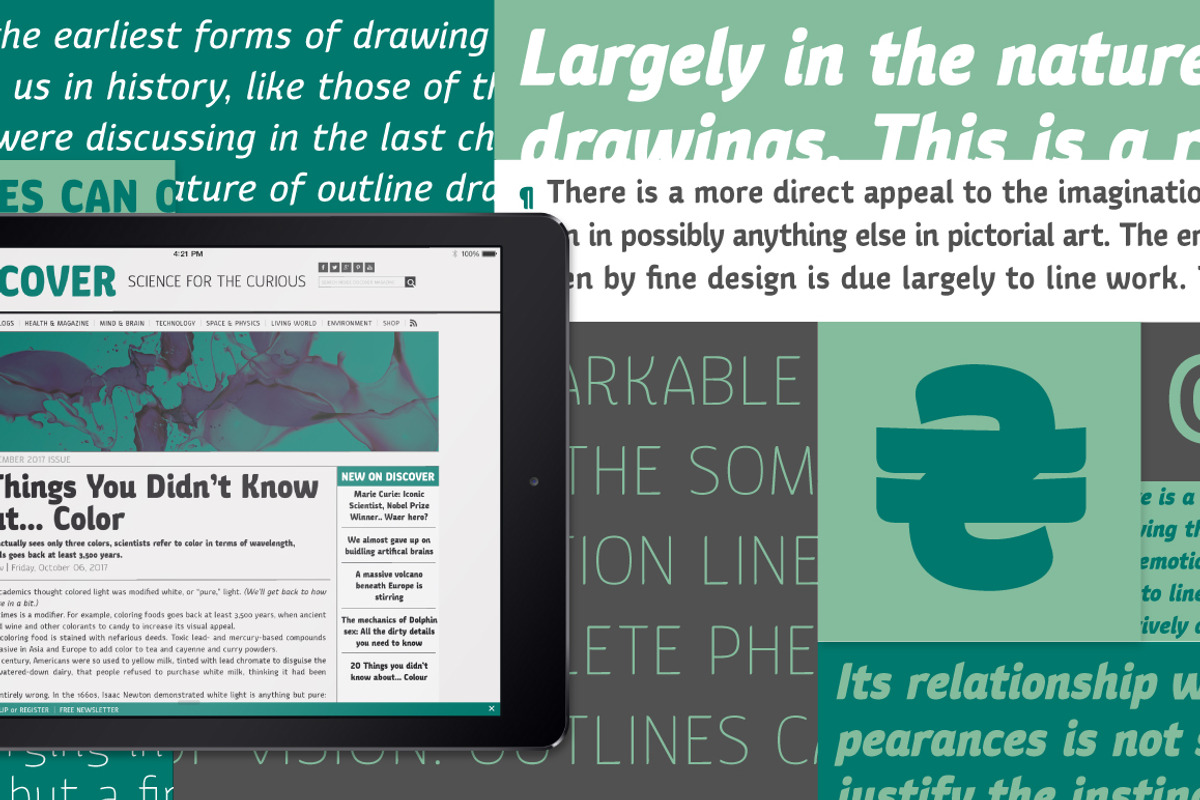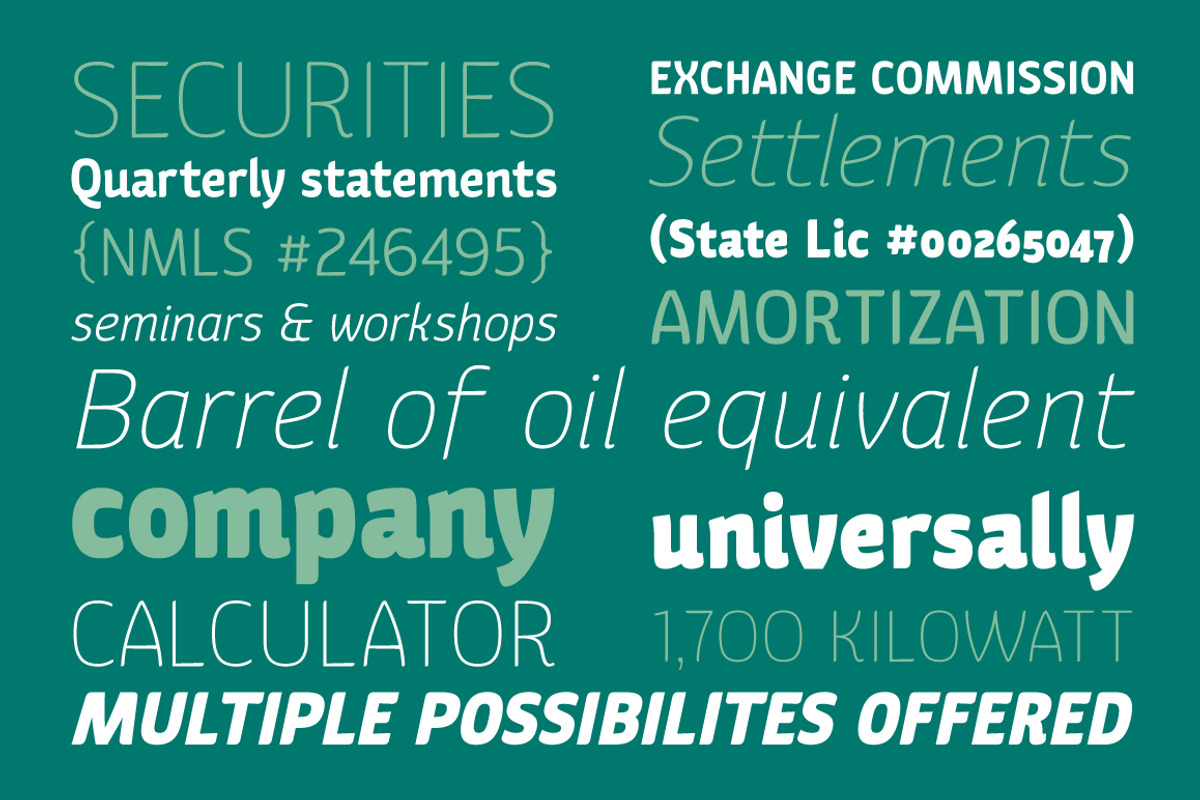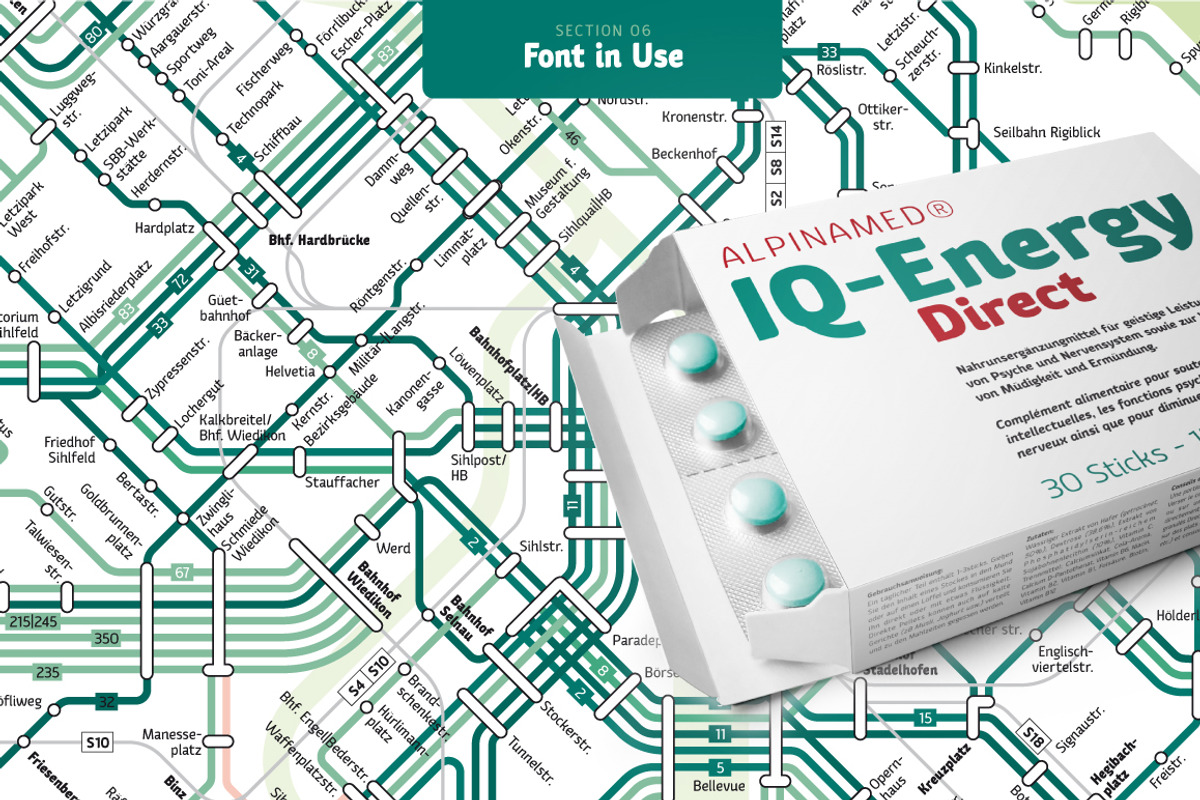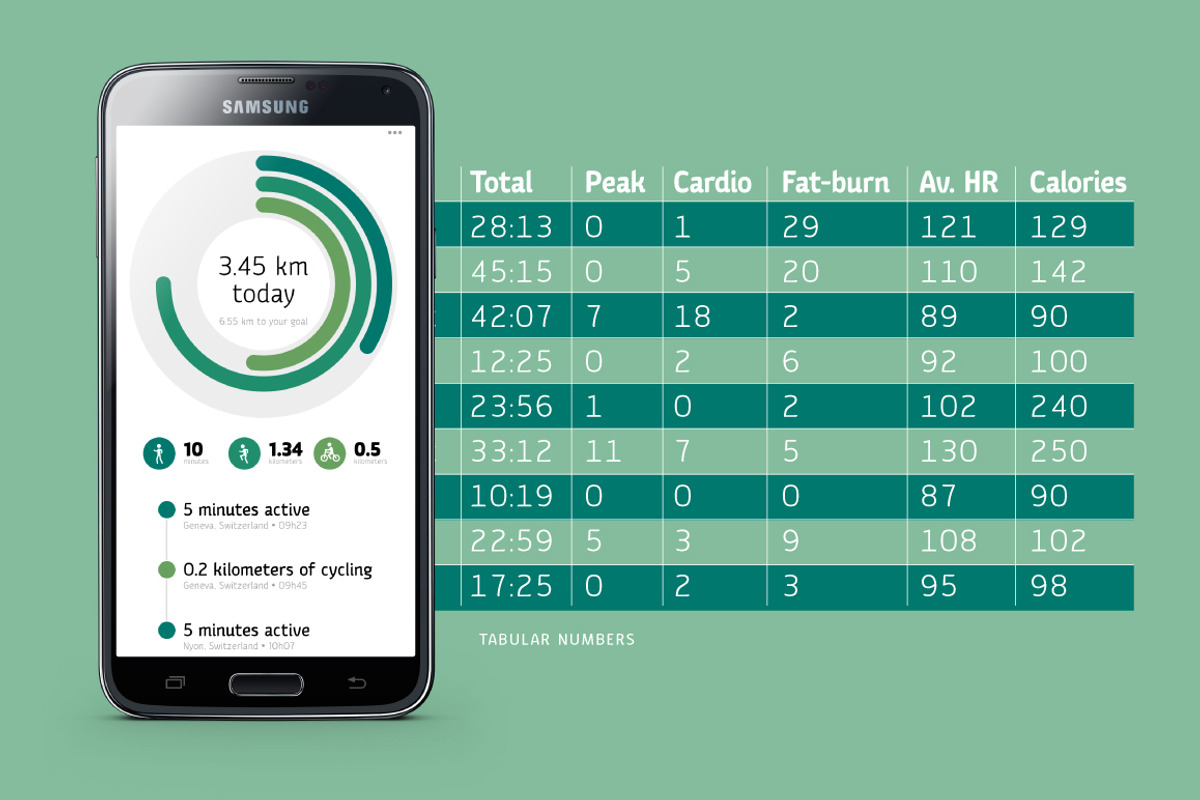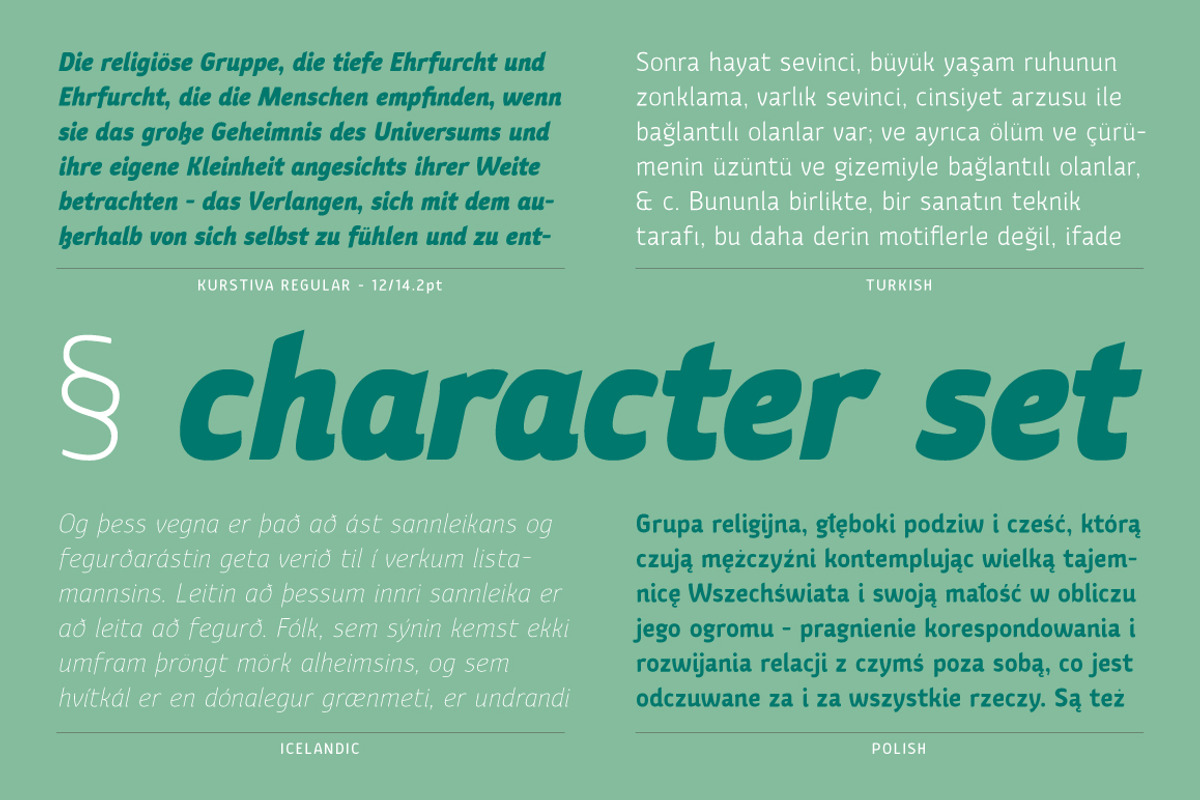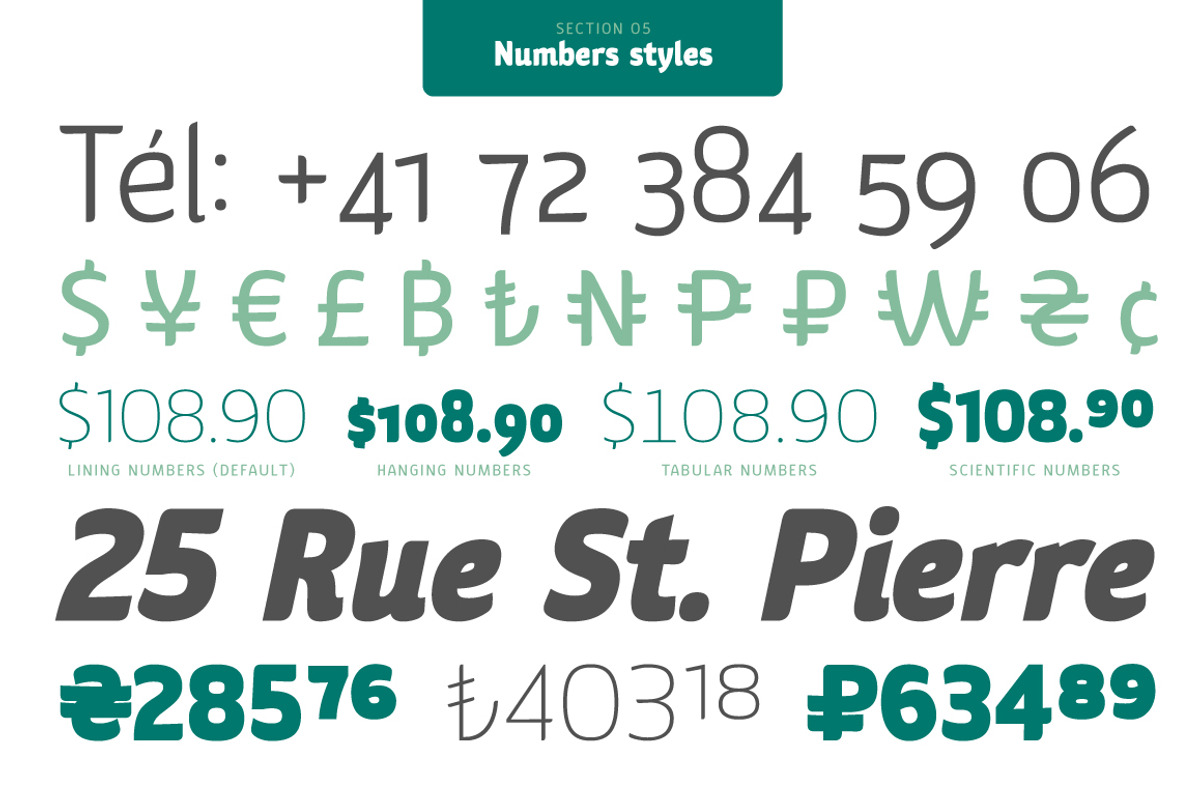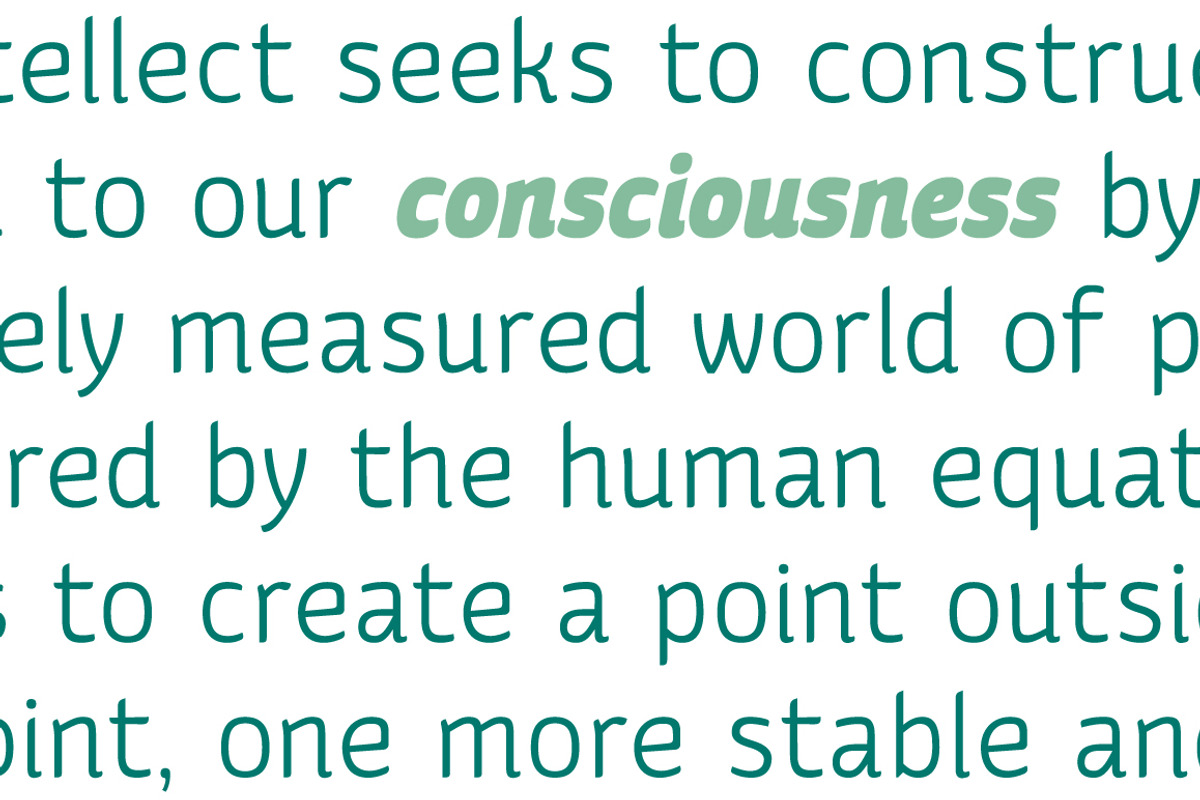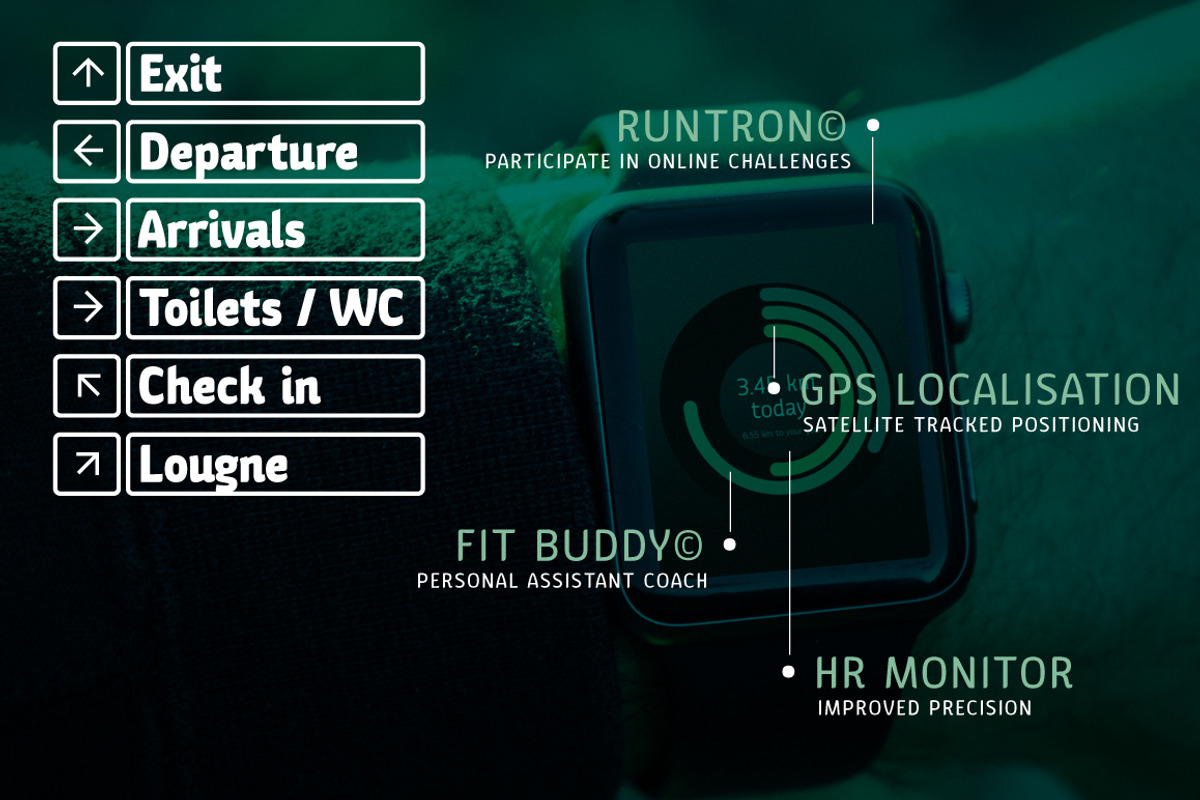
Kurstiva
Kurstiva is a narrow, sans serif typeface family available in ten weights ranging from a hairline, thin weight to a dark, black style. Conceived as a contemporary text face, this typeface aims to convey a strong personality while remaining very legible. Functional and compact in smaller sizes, Kurstiva reveals it’s finer details and character in larger sizes found in titles or logos. With an extended character set covering most Latin based languages, a wide range of monetary symbols and a complete arrow collection, this family was designed to adapt to a variety of a settings or tasks.
Weights included: Thin, Thin Italic, Light, Light Italic, Regular, Italic, Bold, Bold Italic, Black, Black Italic
Opentype features: Ligatures, Alternate, Scientific numerals, Hanging numerals (Oldstyle), Tabular numerals, Fractions